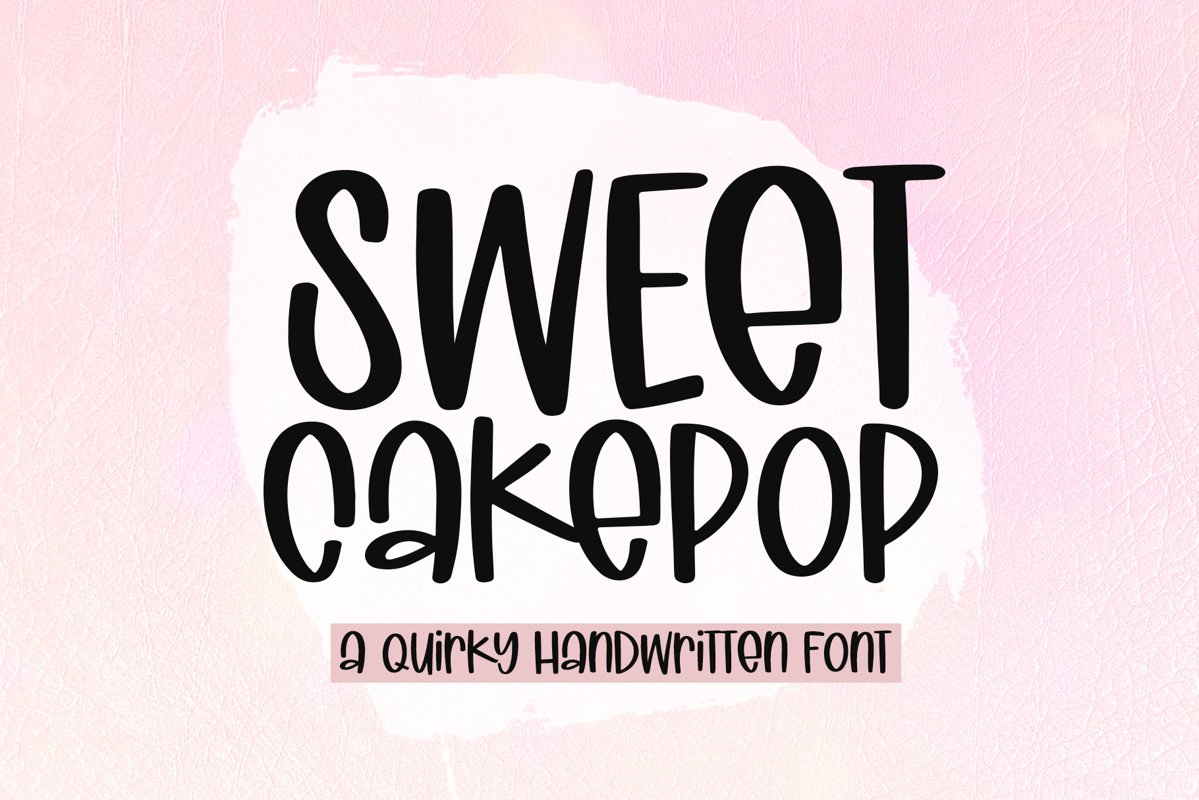
Sweet Cakepop is a fun and quirky handwritten font!
This font is perfect for quotes, shirt designs, websites, branding, children's designs, svg designs, blogs, logos, invitations and more!